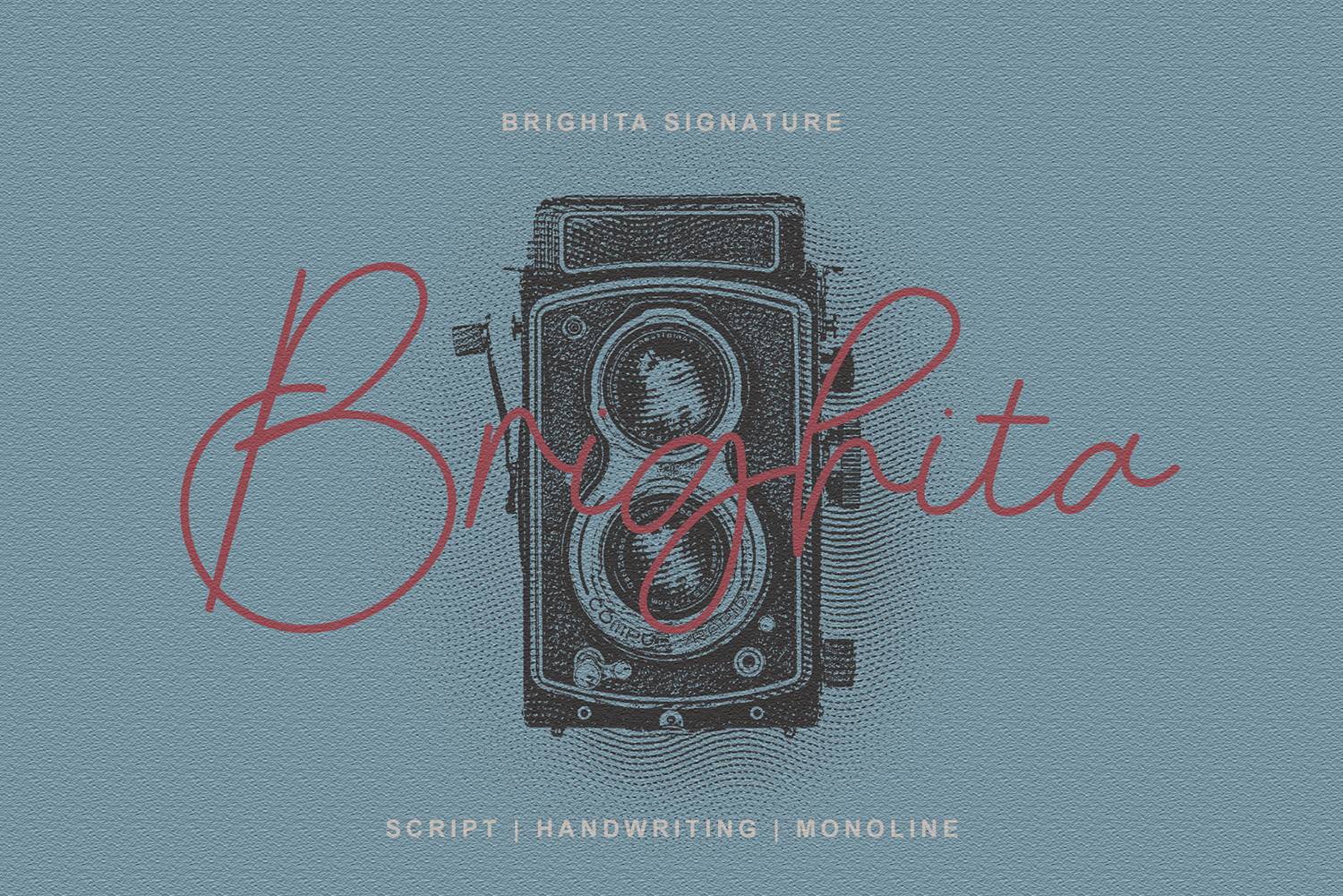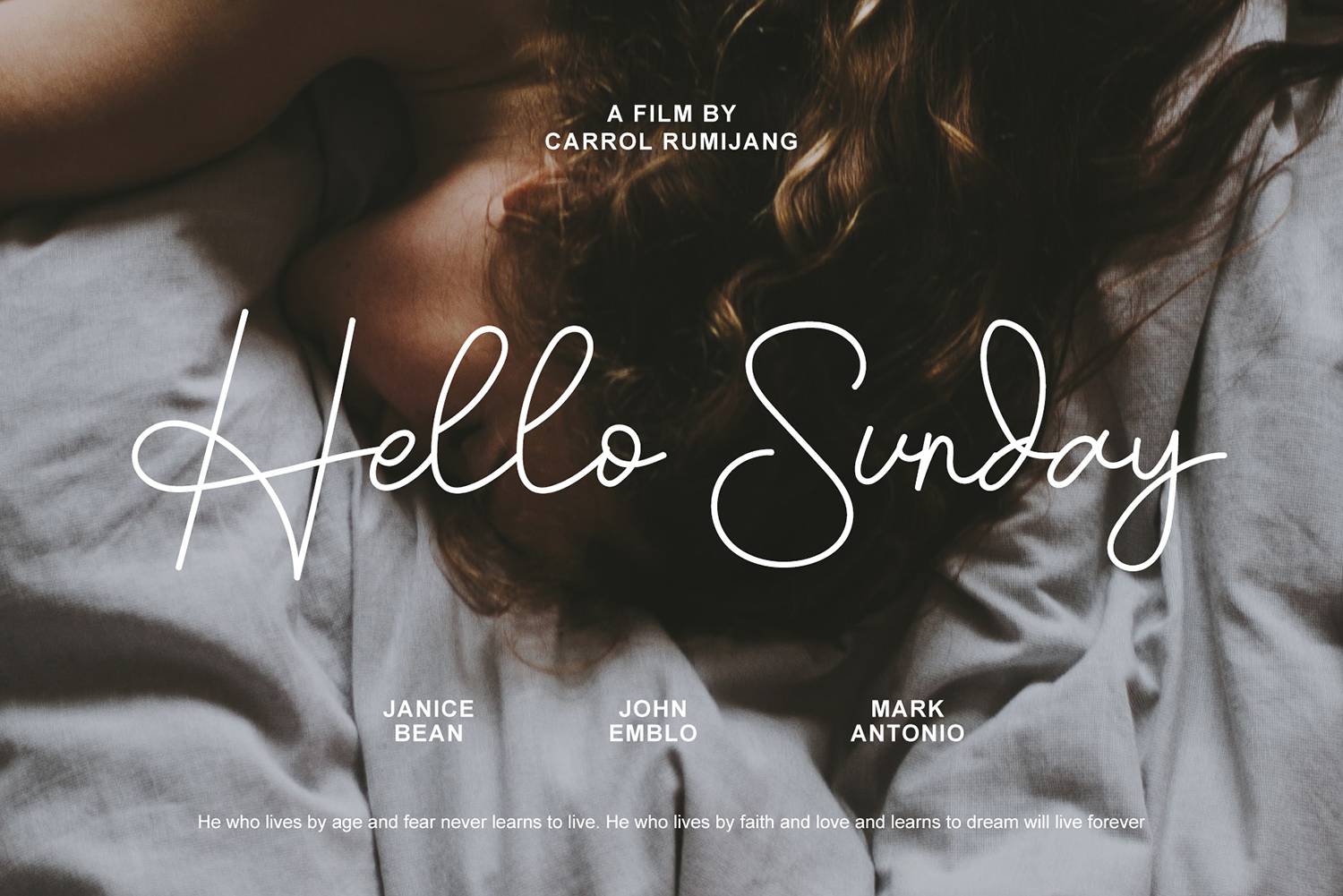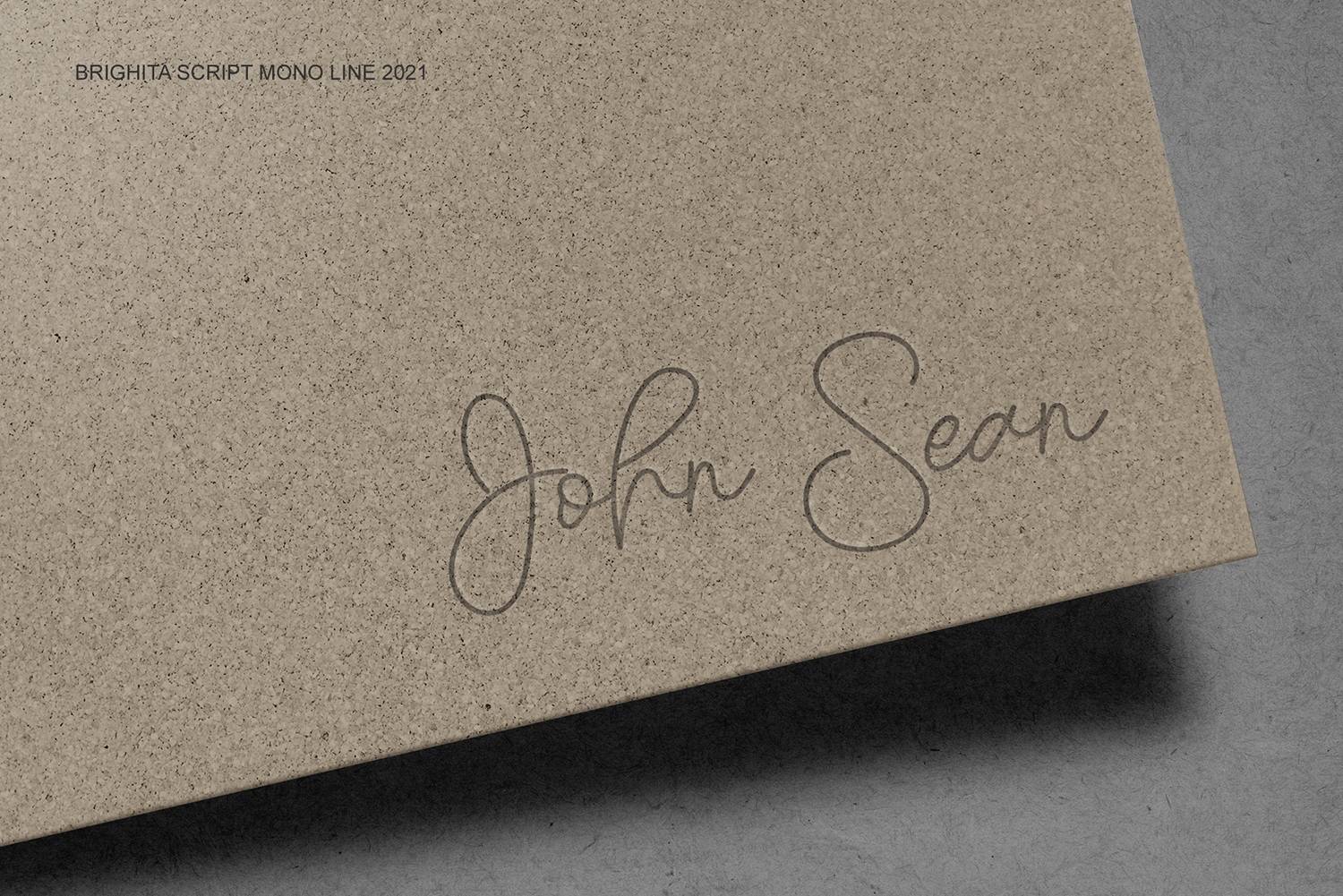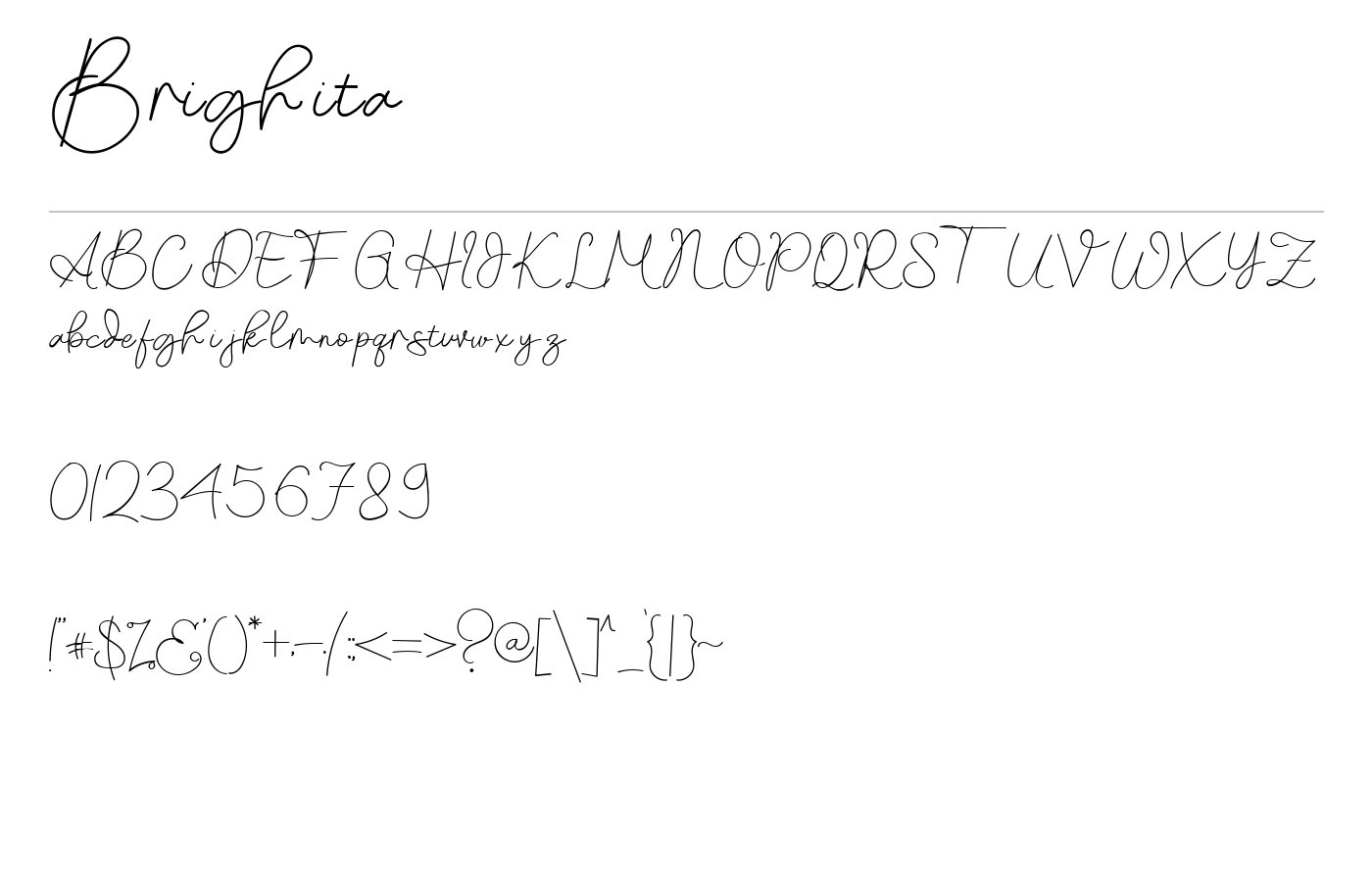
Brighita is a delicate, elegant script font characterized by its thin, flowing lines and graceful, handwritten style. Its airy and refined letterforms create a charming, personal feel, making it perfect for fashion branding, wedding invitations, and sophisticated editorial designs where a touch of femininity and elegance is desired. This font works best in display and headline contexts, lending a stylish and modern handwritten aesthetic.
Brighita Font
About Brighita Font
| Font family | Brighita Font |
| Designer | ilennalishawa |